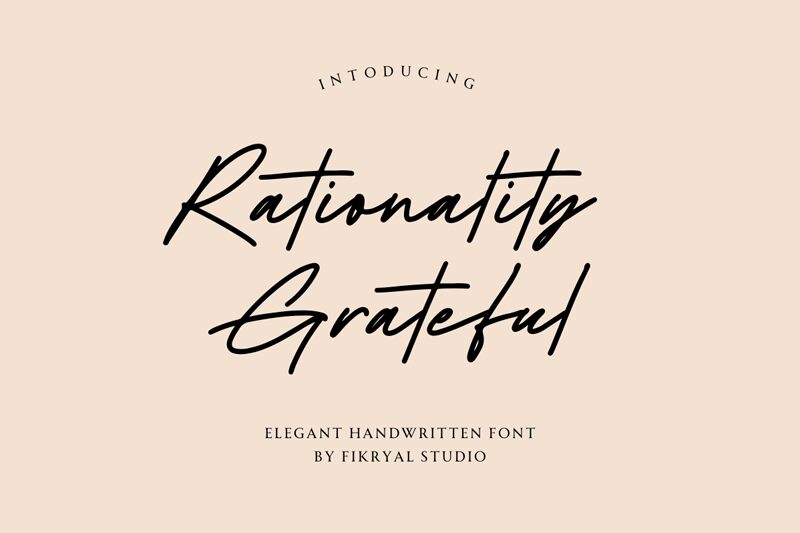
Rationality Grateful
Rationality Grateful font, designed by Fikryal Studio, captivates with its elegant handwritten style that embodies sophistication and warmth. This stunning light font mimics the fluid motions of a signature, creating an inviting and personal touch. Its graceful curves and gently flowing lines make it ideal for conveying emotions in designs like wedding invitations or heartfelt letters.
The charm of Rationality Grateful lies in its ability to balance subtlety with expressive flair, making it a versatile choice for branding materials, social media graphics, or any project that seeks to resonate on a personal level. Whether enhancing the intimacy of a greeting card or adding character to a logo, this font stands out as a perfect ally for creative endeavors where connection is key.